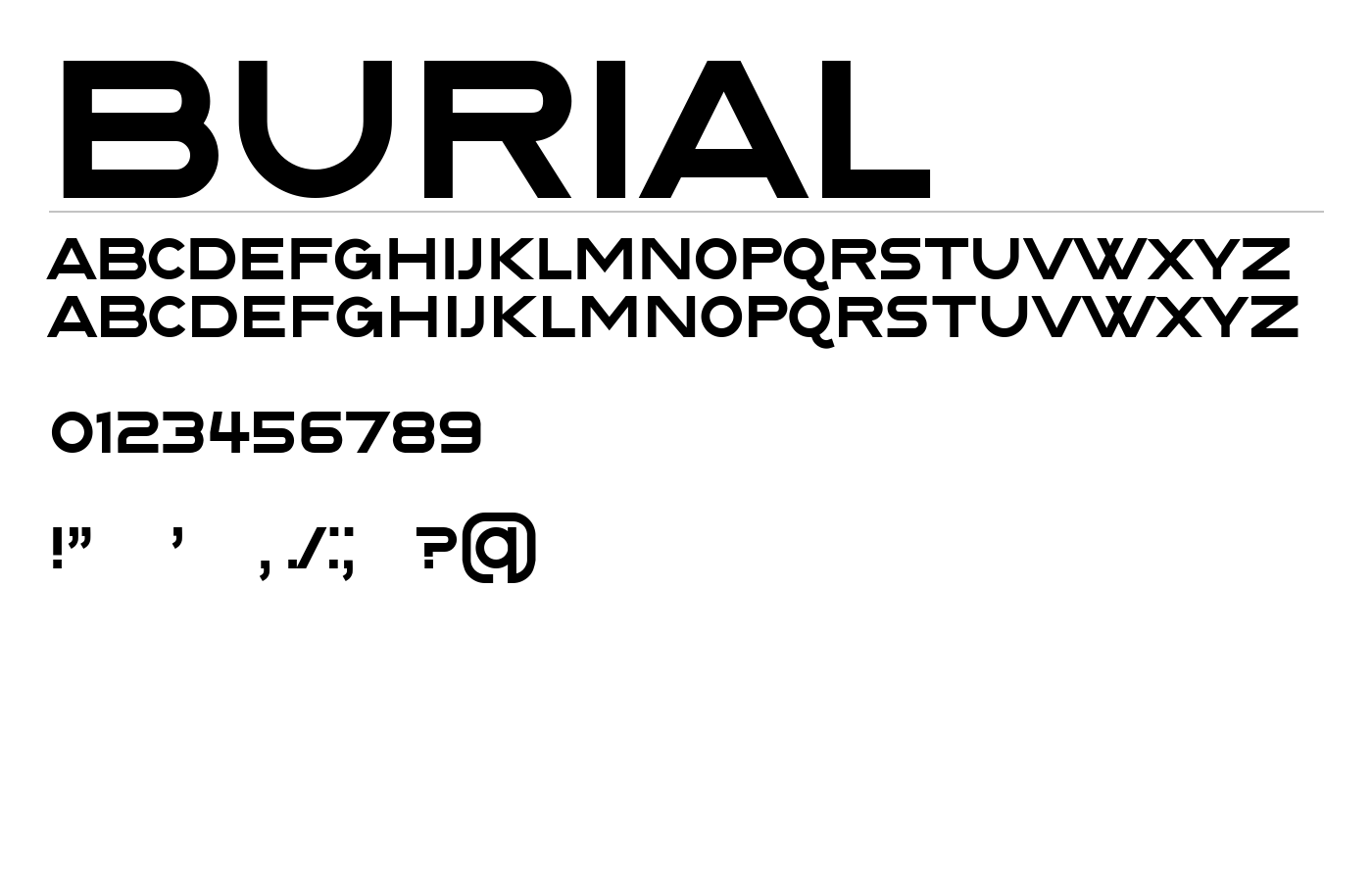
Burial is a bold, geometric sans serif font characterized by its strong, clean lines and modern style. With a compact width and uniform stroke weight, it offers a futuristic and technical feel, making it ideal for branding, headlines, and editorial projects that want to convey strength and innovation in a sleek, contemporary way. This font works best where clarity and impact are needed, such as in tech, fashion, and cutting-edge design contexts.
Burial Font
About Burial Font